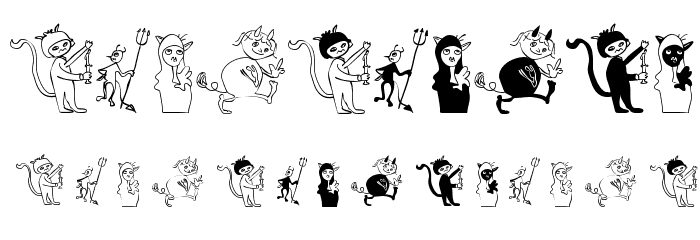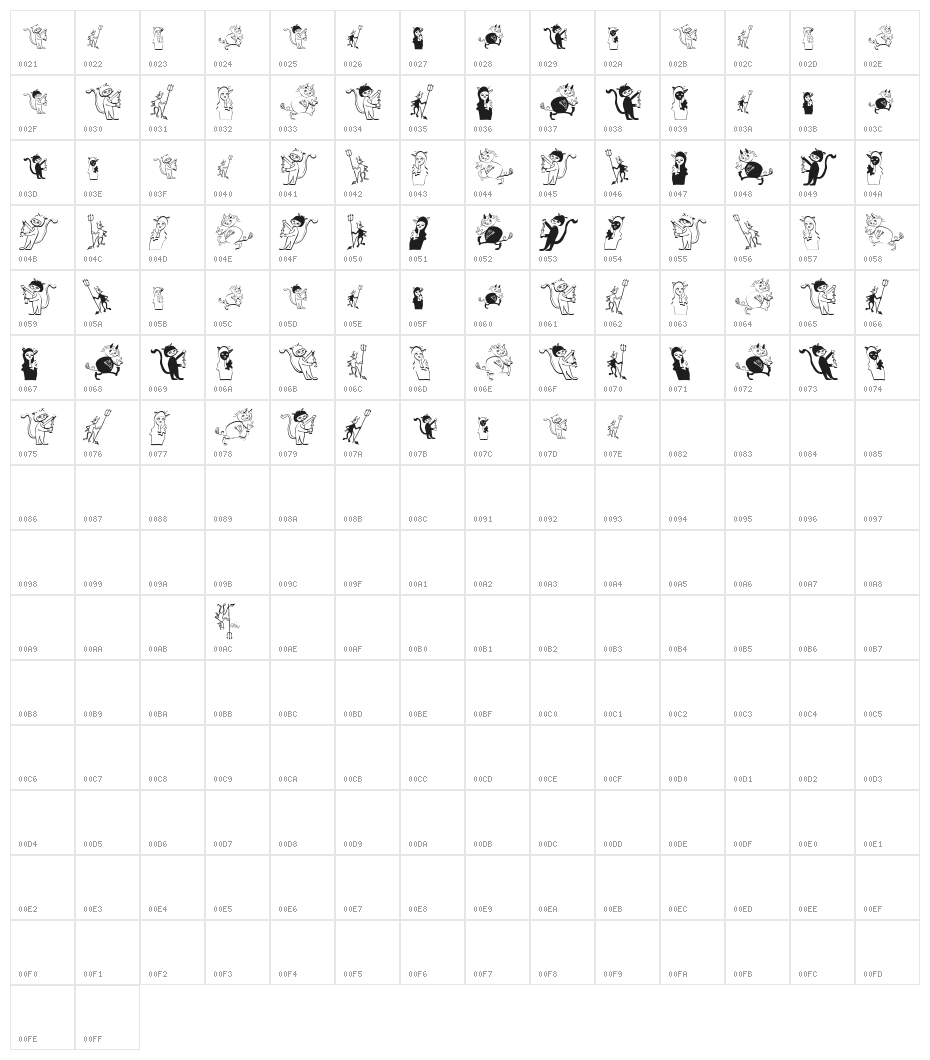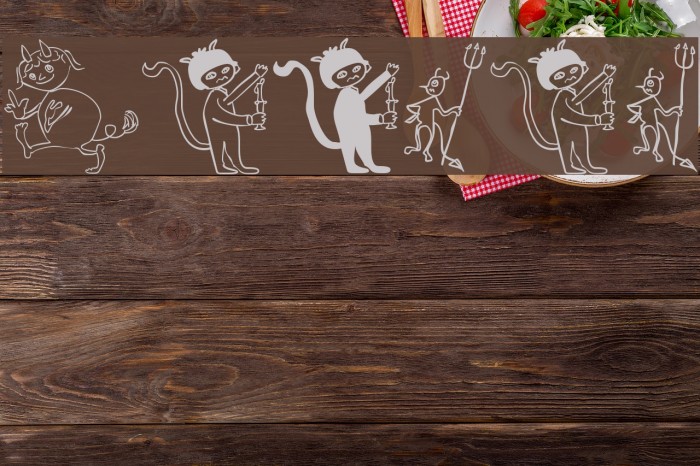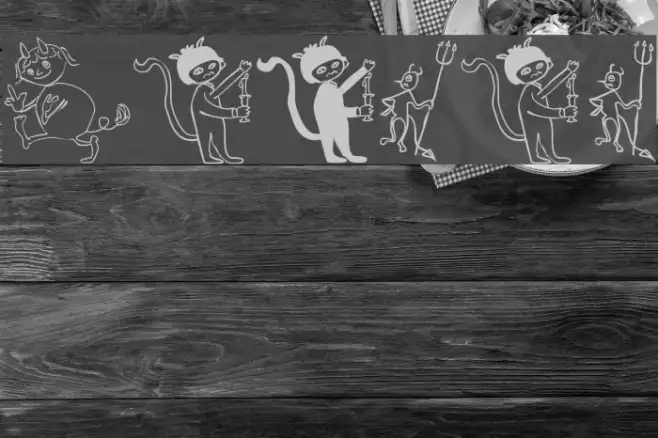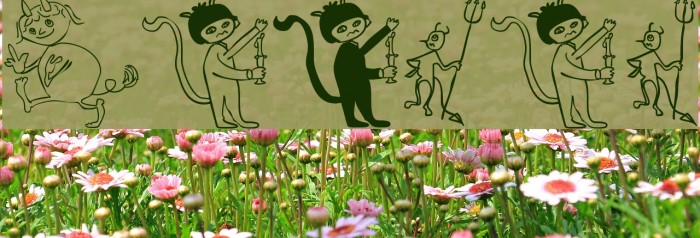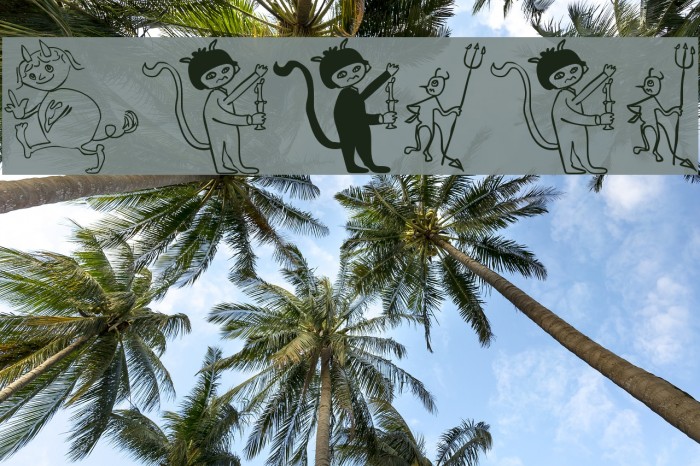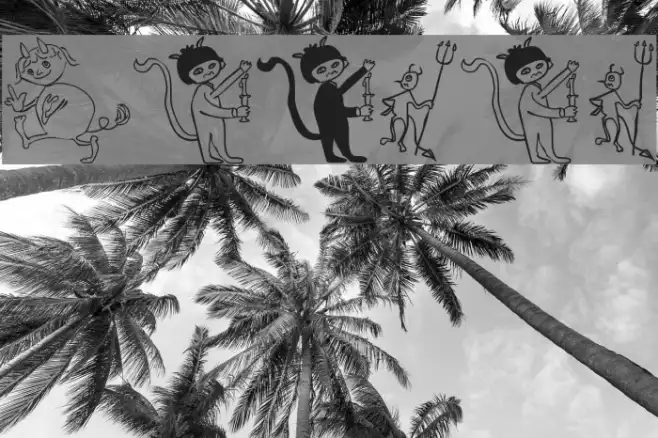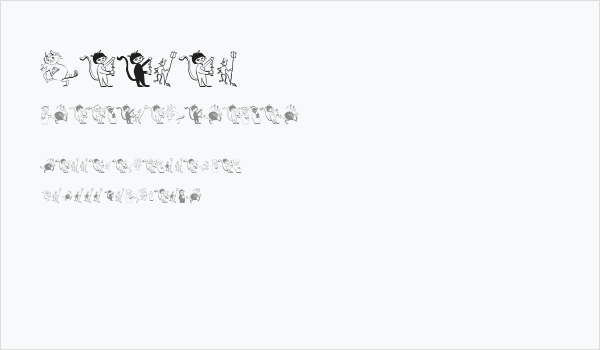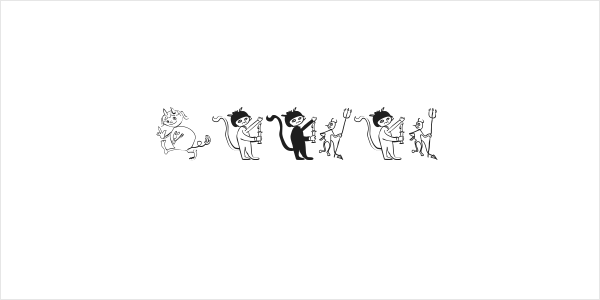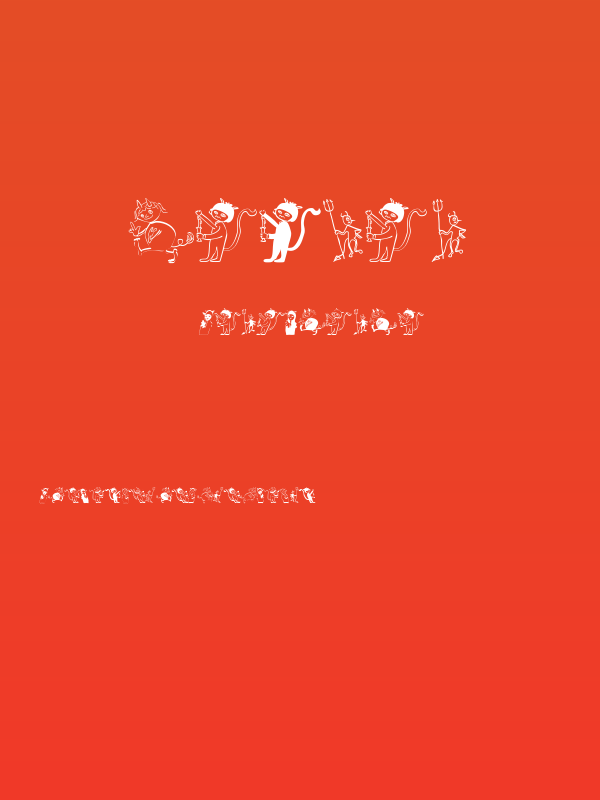
Deibel Font
Deibel Description
This is not a traditional font but rather a collection of whimsical and playful illustrations featuring devilish characters. Each character is unique, showcasing a variety of poses and expressions, often holding objects like pitchforks or engaging in mischievous activities. The style is cartoonish and bold, with a mix of solid black and outlined figures, creating a dynamic and engaging visual experience. The characters are expressive, with exaggerated features that add to their charm and humor. This set is more suited for decorative purposes rather than textual communication, offering a creative and fun element to any design project.
| Use Case | Decorative elements, Illustrations |
| Proposed Projects | Ideal for Halloween-themed designs, playful greeting cards, children's book illustrations, or any project requiring a whimsical and mischievous touch. |